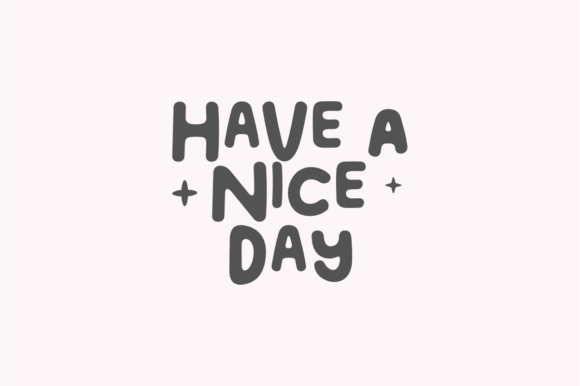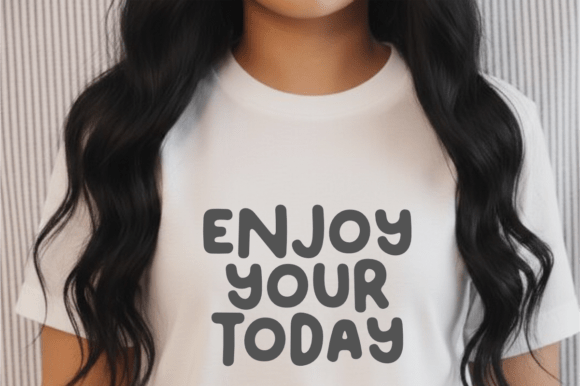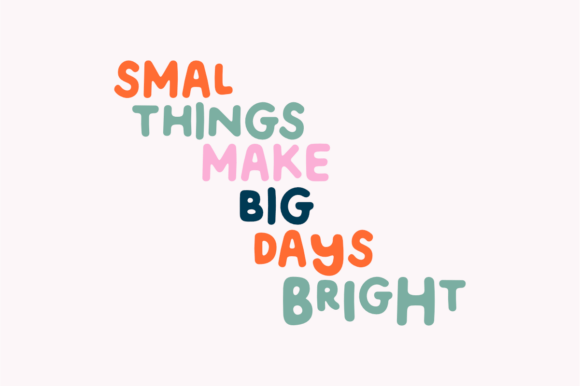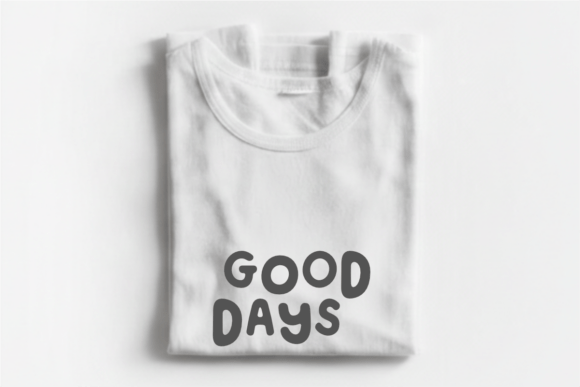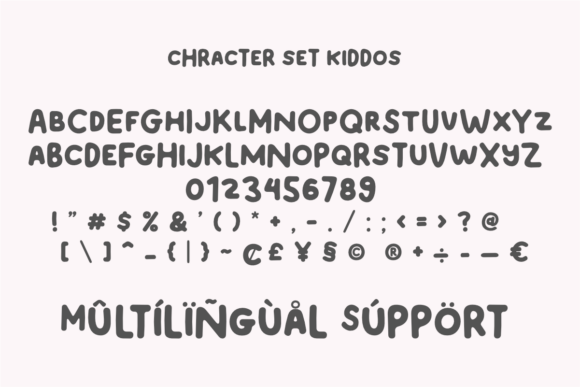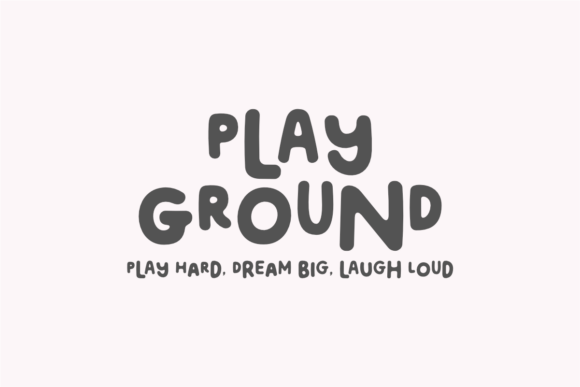
The Joy of Unconventional Design
Have you ever been browsing through a vintage store and stumbled upon a quirky, hand-drawn sign that captures your attention? Maybe it’s a colorful logo on a kids’ t-shirt or a playful label on a toy box. Whatever it is, there’s something about it that makes you smile and draws you in. That’s the magic of unique design, and it’s exactly what the Kiddos Font aims to bring to your creative projects.
Designed to evoke a sense of playfulness and whimsy, Kiddos Font is a striking display font that’s perfect for adding a personal touch to your designs. Whether you’re working on a children’s book, a logo for a kids’ clothing brand, or a simple greeting card, this font is sure to bring a smile to your face and make your design stand out. Its versatility and charm make it a valuable tool for designers looking to add a little extra something special to their work.
Kiddos Font Key Features
- Font Family: Kiddos Font is a sans-serif font family designed for digital use, with multiple weights and styles.
- Unique Characteristics: Kiddos Font features a friendly, approachable design with subtle rounded edges and a clean, modern aesthetic.
Kiddos Font Review
At first glance, Kiddos Font seems like a fun and playful addition to any design project. ✨ Its rounded edges and childlike feel make it perfect for creating a whimsical atmosphere, especially in educational or children’s-related contexts. I particularly enjoy using it for headings and titles, as it adds a touch of friendliness and approachability.
One of the things that really stands out about Kiddos Font is its versatility. ✨ It’s available in a range of weights, from light to bold, which makes it easy to use for both body text and display text. Additionally, the font’s rounded forms make it a great choice for creating visually appealing icons and graphics.
While Kiddos Font has its strengths, it also has some limitations. ⚠️ One of the main issues I’ve encountered is its readability at smaller font sizes. The font’s rounded edges can make it difficult to read, especially for older audiences or those with visual impairments. Additionally, the font’s childlike feel may not be suitable for all projects or audiences.
- Not suitable for body text at smaller font sizes
- May not be suitable for all audiences or projects
Kiddos Font is a fun and playful addition to any design project, but it’s not without its limitations. While it’s perfect for creating a whimsical atmosphere, it may not be the best choice for all projects or audiences. With careful consideration and use, however, Kiddos Font can be a great choice for designers looking to add a touch of friendliness and approachability to their designs.
Tips for Getting the Most Out of Kiddos Font
Use Kiddos Font for playful and whimsical designs, such as children’s books, party invitations, and nursery decor. Experiment with different font sizes and styles to create visual interest and emphasis. You can also combine Kiddos Font with other fonts to create a unique and eye-catching design.
Kiddos Font is perfect for:
Children’s book covers and illustrations
Party invitations and decorations
Nursery decor and wall art
Playful social media graphics and ads